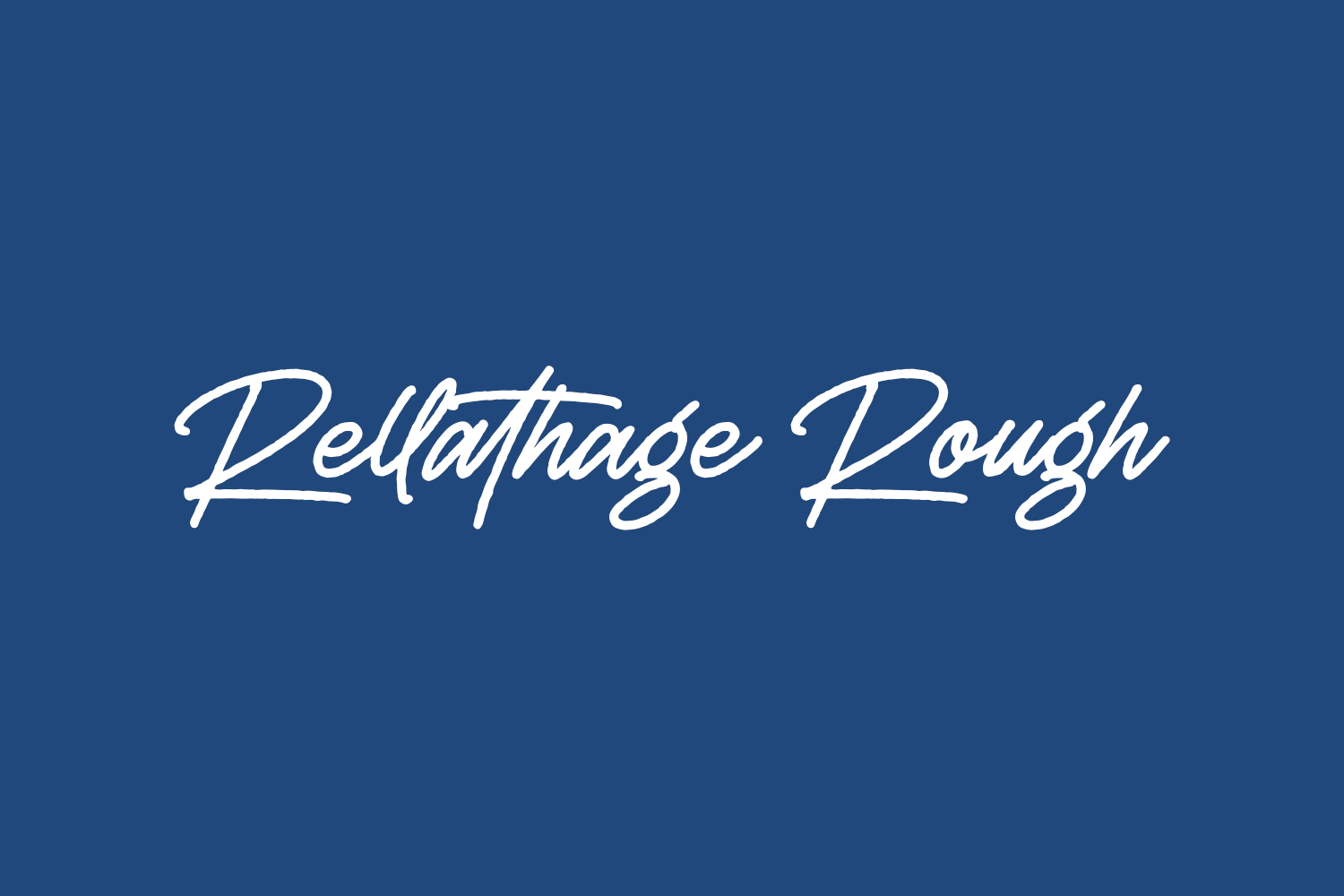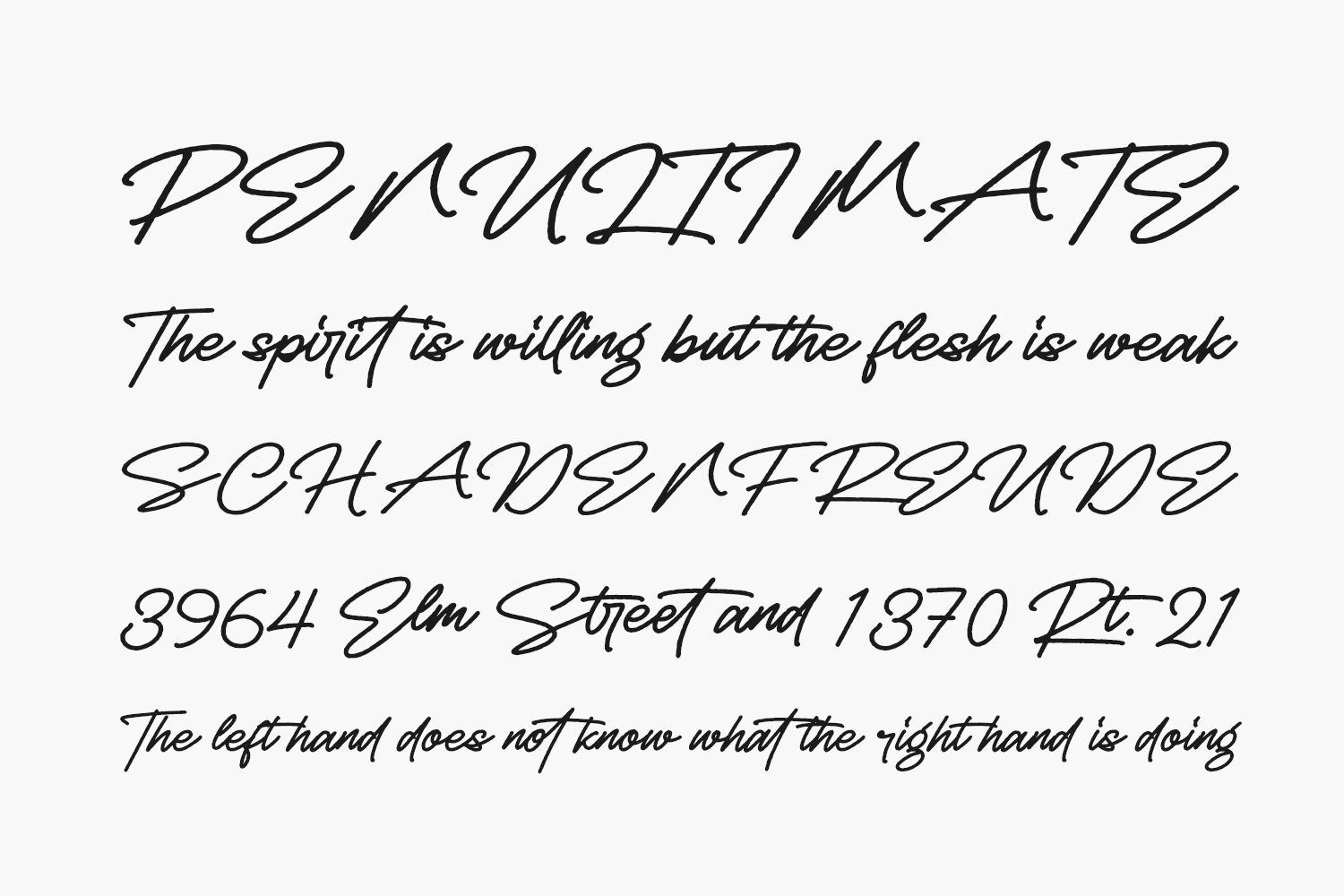
Rellathage Rough Free Font Family is a beautiful, well balanced and vintage styled script font. It is defined by smooth curves and is perfect for fashion branding or editorial designs. Rellathage Rough Free Font was designed by Perspectype Studio and is free for personal use only. Please purchase the full version for commercial use.
Designed by Perspectype Studio